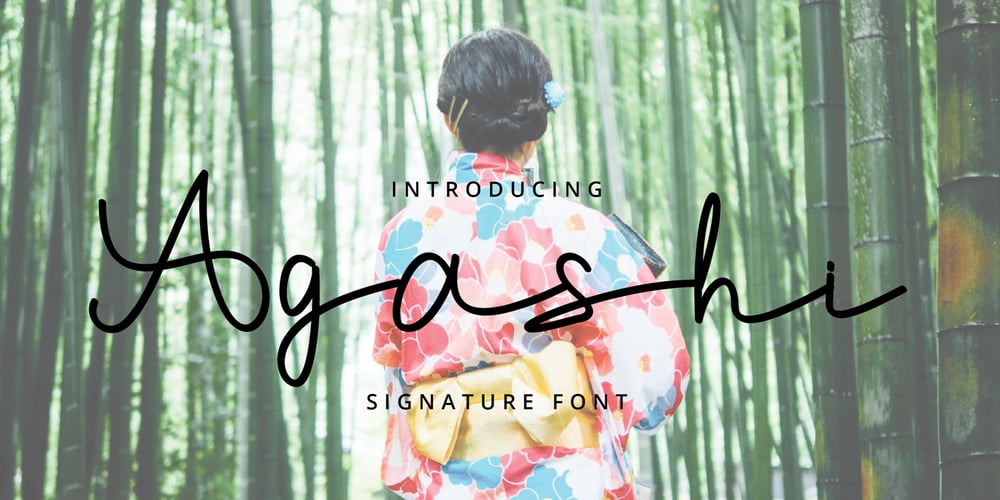
Agashi Signature Font Family was designed by Andrea Zudip Aggasi and published by Nirmalagraphics. Agashi Signature contains 1 styles and family package options. Agashi Signature features a handwritten style. This font is suitable for a variety of uses including magazines, brochures, flyers, Instagram posts and anything that might compliment a feminine touch. It includes multi-lingual support.